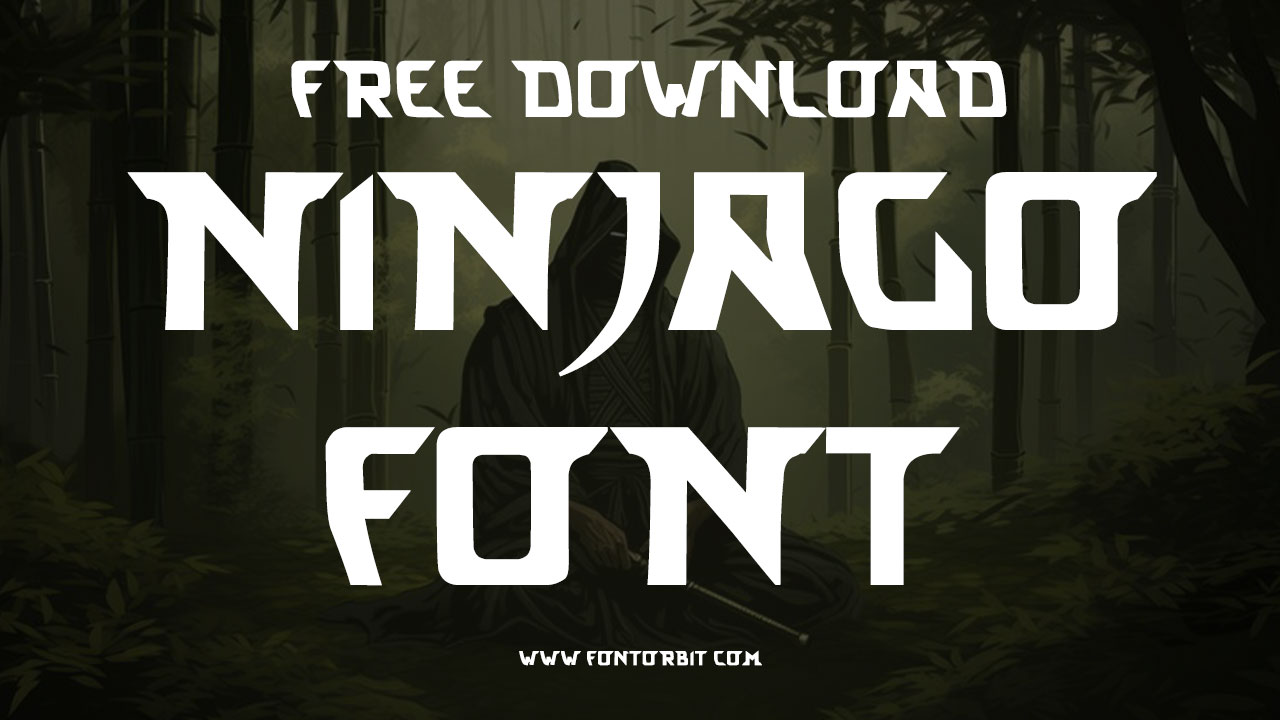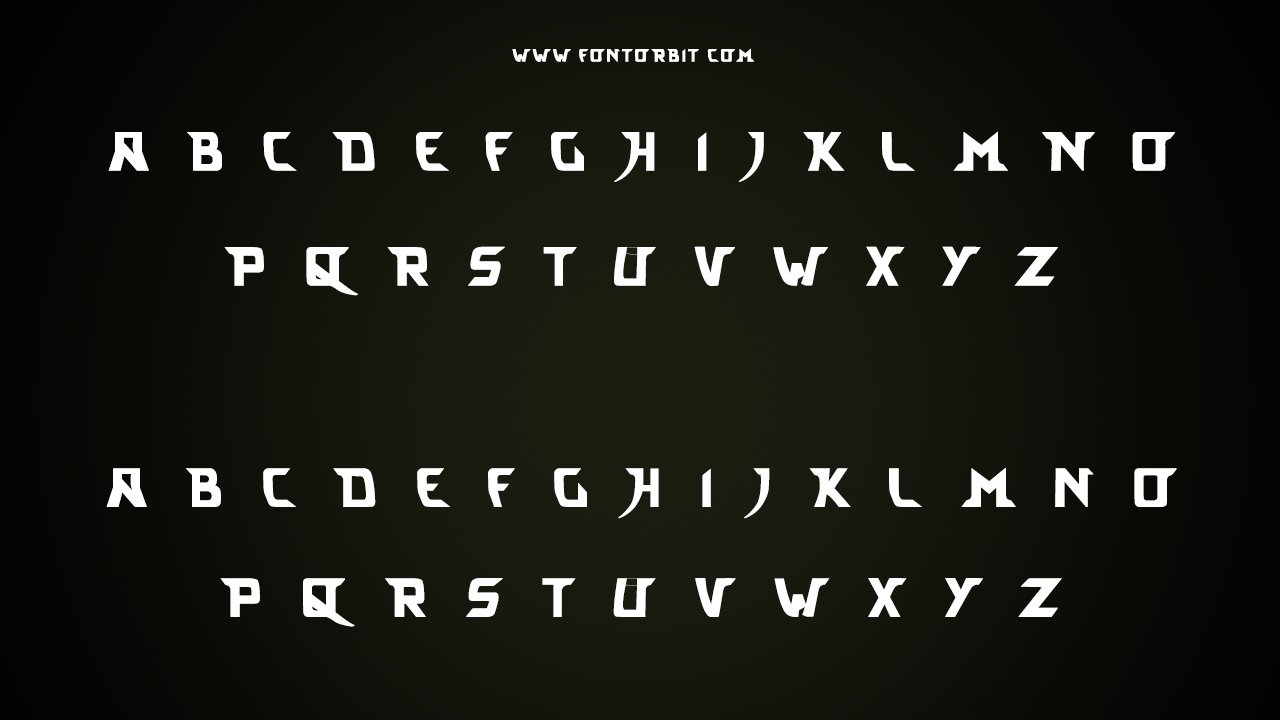
The Ninjago Font Family
The Ninjago Font includes uppercase characters and numbers, reflecting the original logo design from the Lego Ninjago series. It is perfect for creating dynamic and themed graphics inspired by Sensei Wu or other Ninjago characters.
Ninjago Regular
Ninjago Font is ideal for themed projects, including fan art, merchandise, and promotional materials related to the Ninjago franchise. Its unique design makes it suitable for creating engaging visuals in graphic design applications like Photoshop or MS Word.
The Ninjago Font by Lugino Marini brings a touch of the Lego Ninjago universe to your designs. Its display style and compatibility make it a great choice for creating thematic and visually striking content.
1.What Is The Ninjago Font?
The Ninjago Font is a display typeface by Lugino Marini. It features uppercase characters and numbers and is used in the Lego Ninjago series and movie.
3.What Are The Key Features Of The Ninjago Font?
The font includes uppercase characters and numbers, designed to match the distinctive style of the Lego Ninjago logo.
4.How To Use The Ninjago Font In Design?
Use Ninjago Font to create themed graphics, fan art, and promotional materials related to the Ninjago series, adding an authentic touch to your designs.
5.What Are The International Language Support Options For The Ninjago Font?
The Ninjago Font primarily supports uppercase characters and numbers; additional fonts may be required for broader language needs.